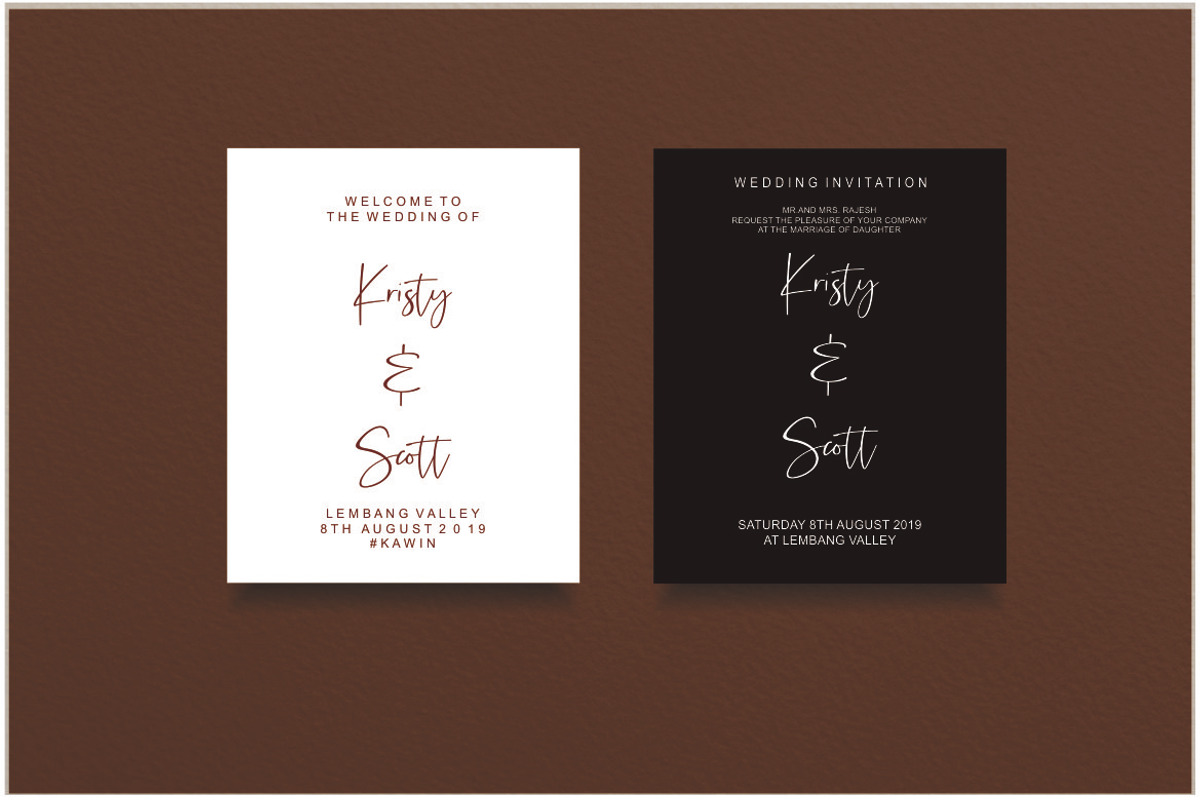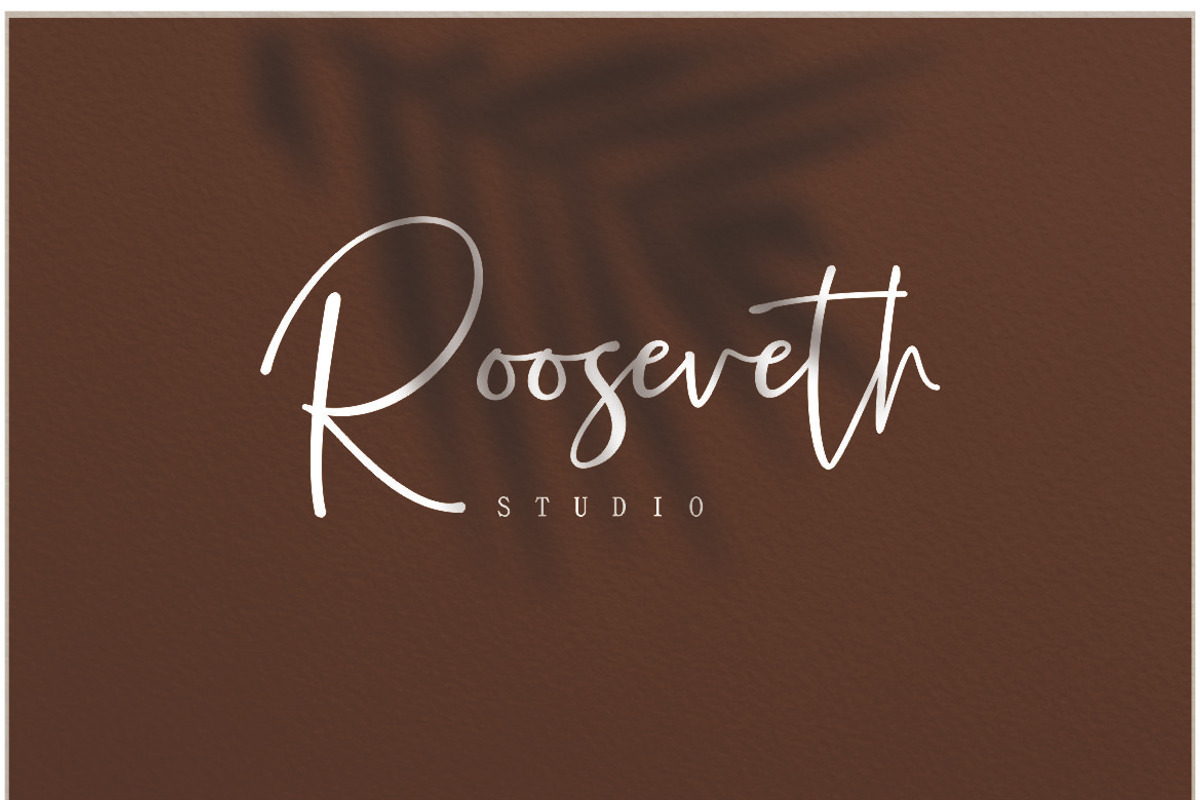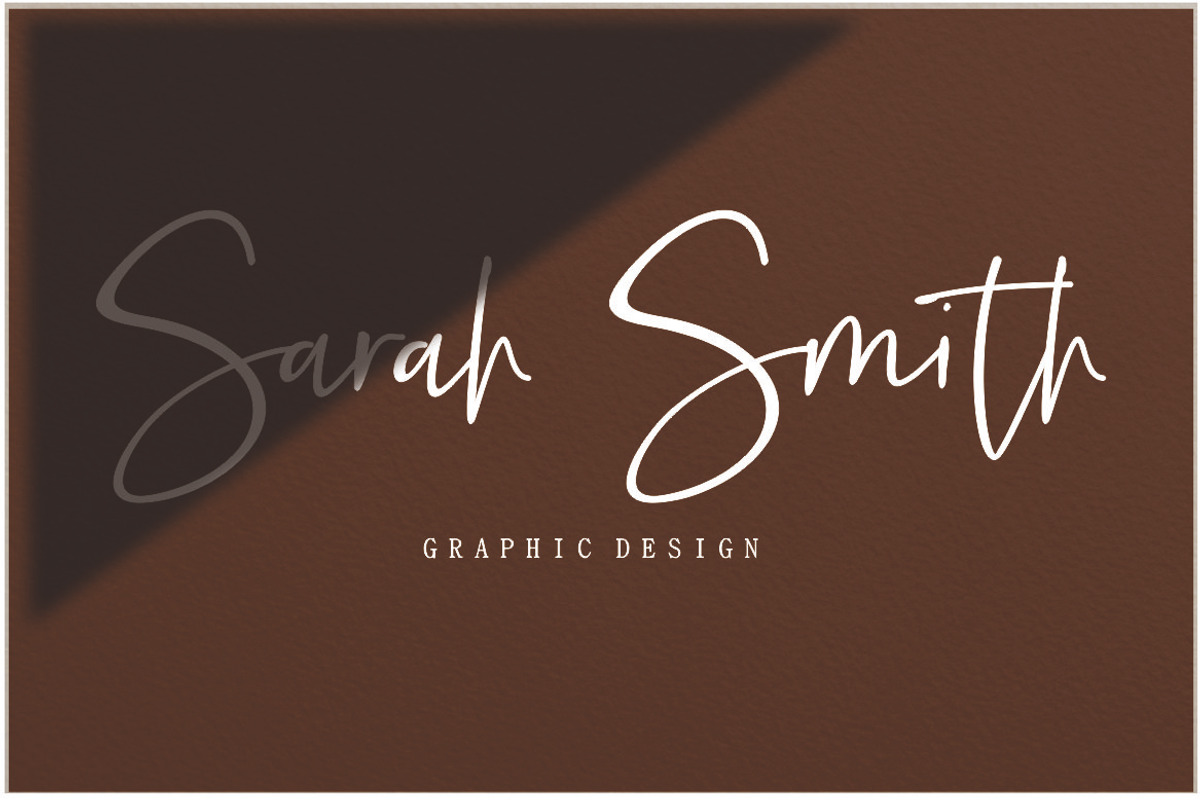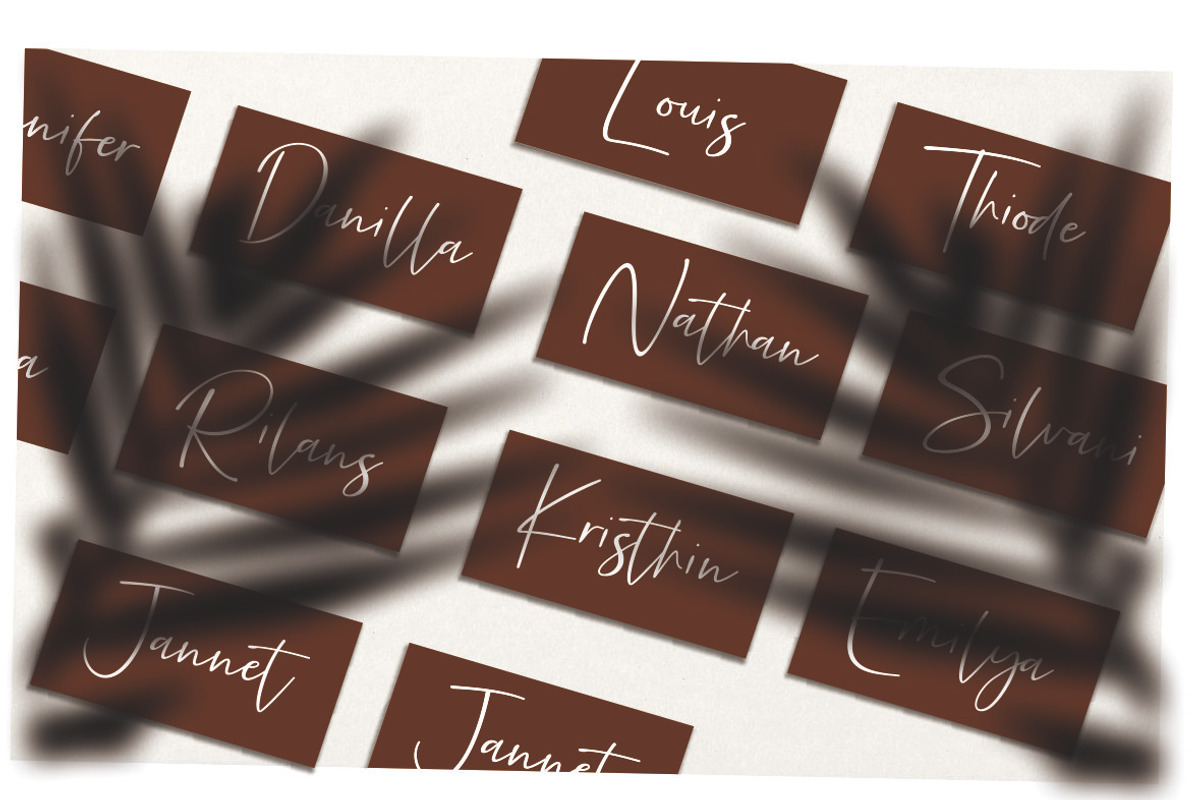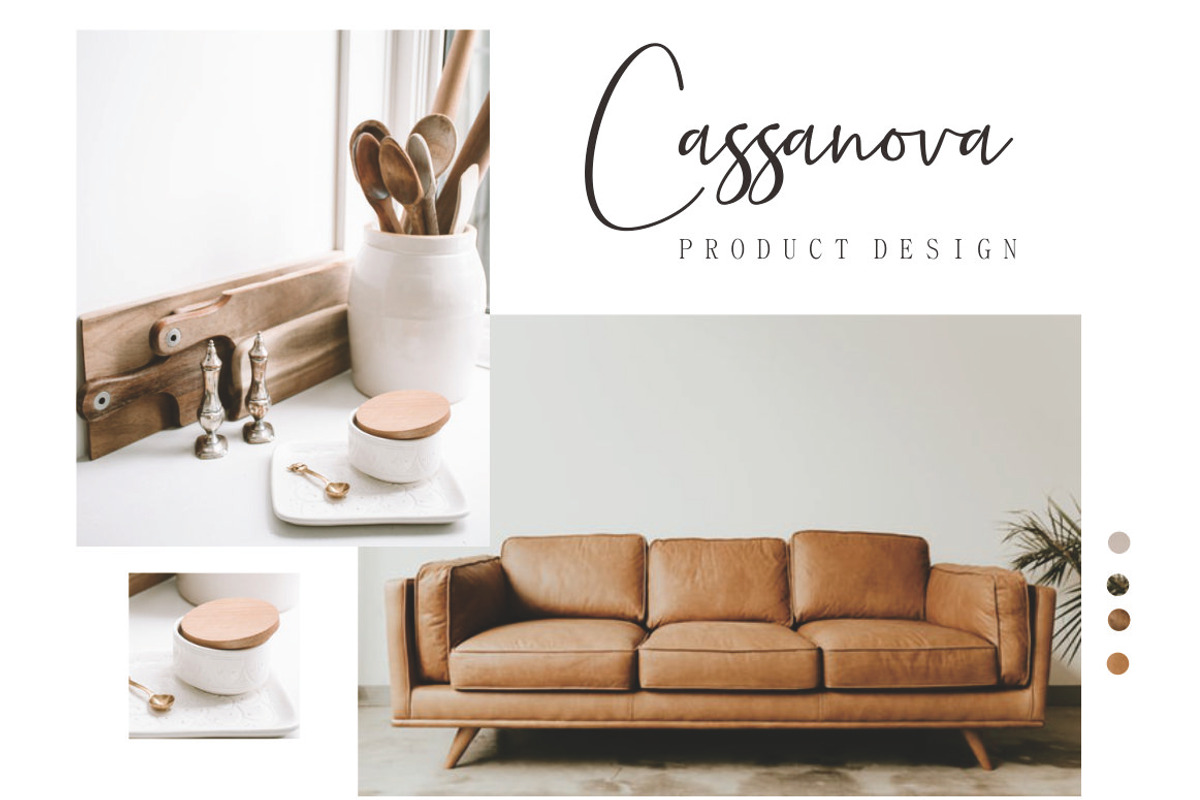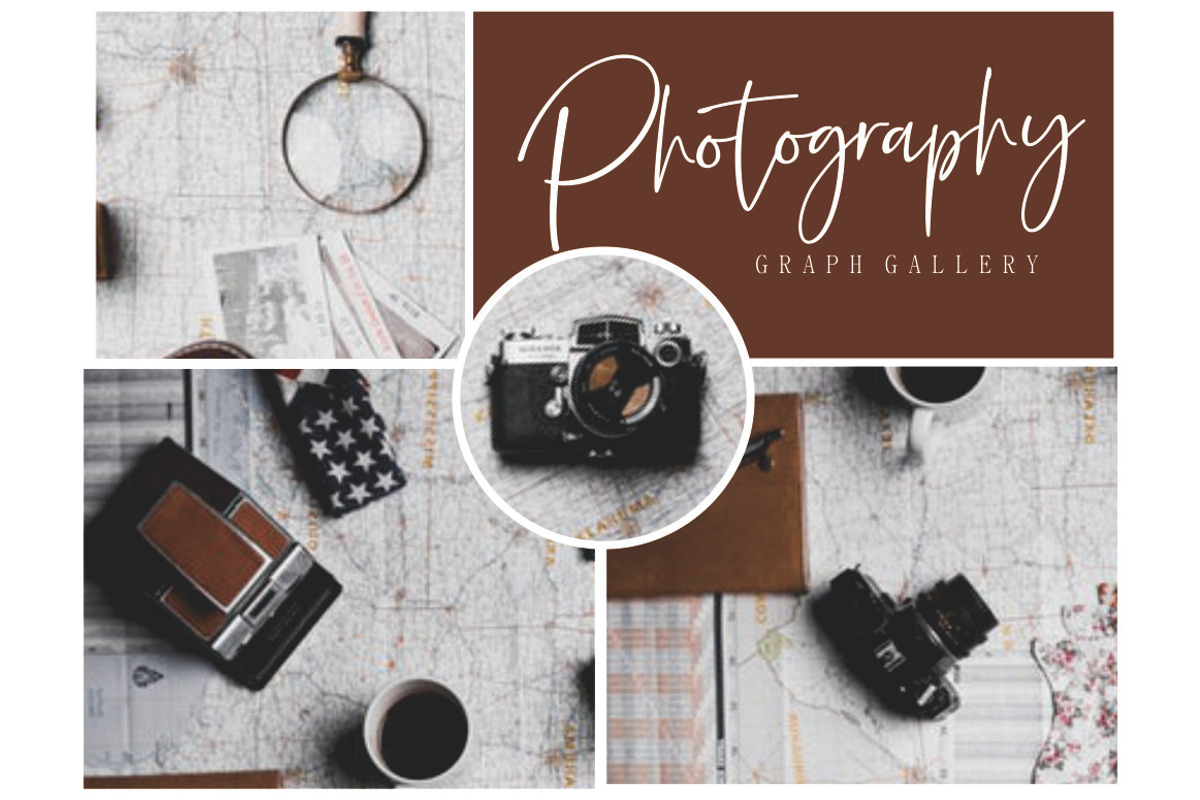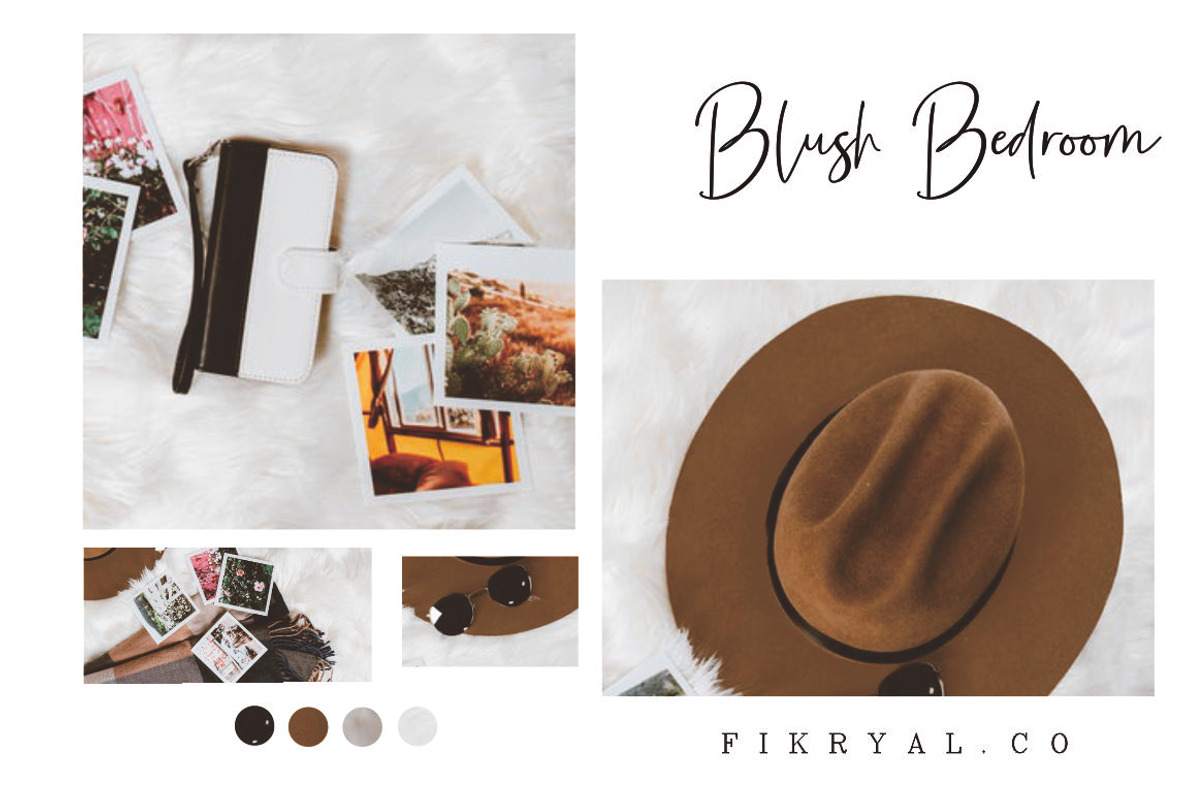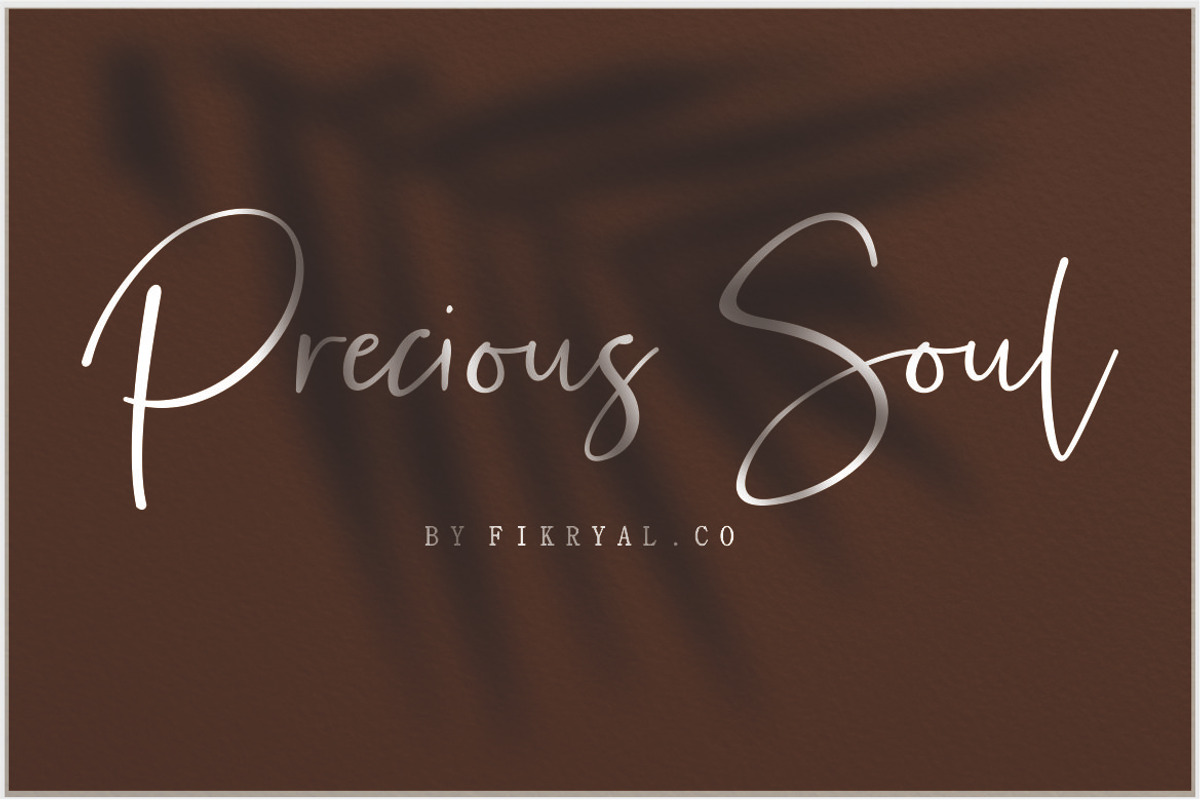
Precious Soul - Handwritten Font
Precious Soul – Font is a new stylish script font. It’s perfect for logo, branding, title, social media posts, advertisements, product packaging, product designs, label, photography, watermark, special event, magazine, web design, etc. If you have any questions please don’t hesitate to contact me. follow my Instagram: @fkryall Website: https://fikryalstudio.com/